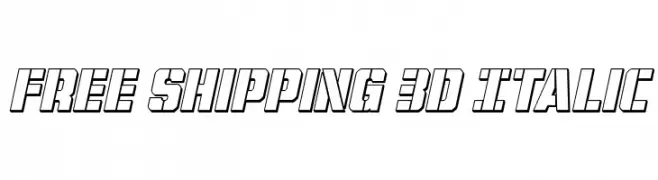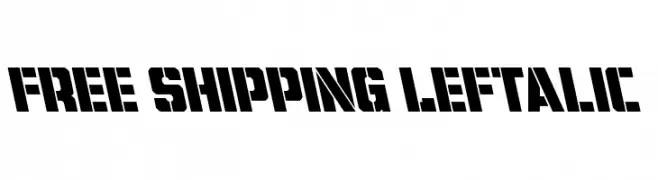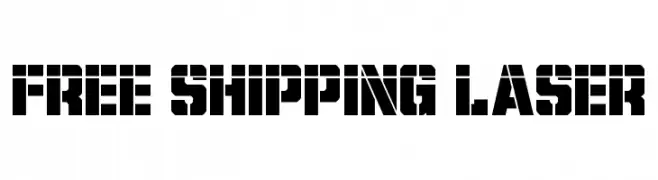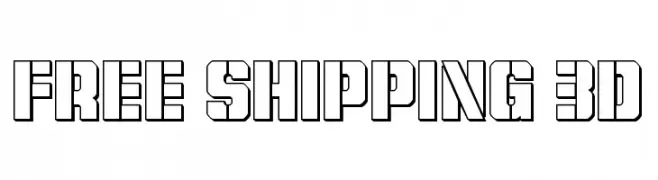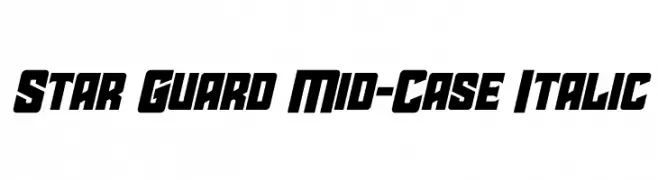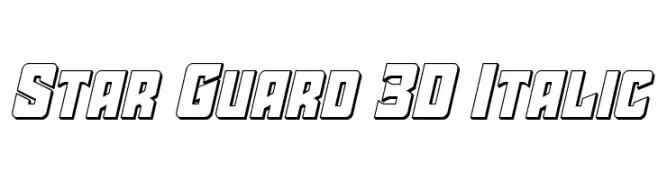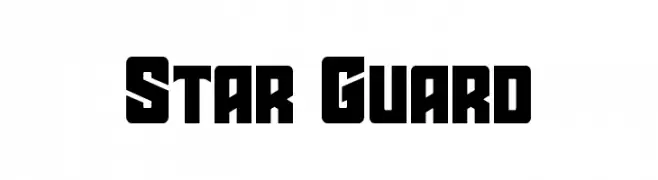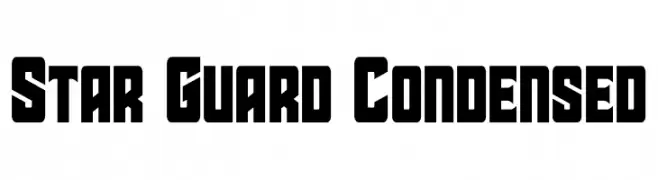
Bold, italic stencil-style font with angular, fragmented characters.
A bold, 3D italic font with outlined characters and a modern style.
A bold, geometric stencil font with a dynamic, angular style.
A bold, italicized font with a gradient effect created by horizontal stripes.
A bold, geometric stencil font with a strong, industrial aesthetic.
A bold, 3D block-style font with a modern, industrial look.
A bold, italic, and angular font with a futuristic style.
A bold, 3D italic font with a futuristic and dynamic style.
A bold, geometric font with a futuristic and sci-fi aesthetic.
A bold, condensed font with a geometric, futuristic style.